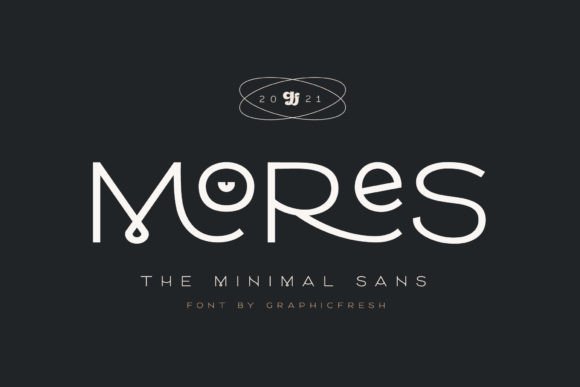
Introducing Mores, the exquisite sans-serif font family that will captivate your designs and elevate your creative vision. Created by the renowned Graphicfresh, Mores is meticulously crafted to infuse your projects with a touch of elegance and sophistication.
With its clean lines and sweeping curves, Mores exudes a captivating charm that will leave a lasting impression. This versatile font is an ideal choice for branding, packaging, and logo design, effortlessly adding a touch of distinction to your work.
The Mores font family boasts a range of weights and styles, providing endless possibilities for customization. Its subtle flourishes and playful accents add a layer of visual intrigue, transforming your designs into works of art. Whether you're creating a sophisticated logo or eye-catching packaging, Mores will elevate your creations to new heights.
Mores is not merely a font; it's an essential tool for designers seeking to create visually stunning masterpieces. Its versatility and timeless appeal make it a must-have for any creative arsenal. Embrace the allure of Mores and witness the transformative power it wields on your designs.
Imagine captivating your audience with a logo that radiates elegance, or crafting packaging that exudes luxury. With Mores, the possibilities are endless. Unleash your creativity and immerse yourself in the world of this extraordinary font family.